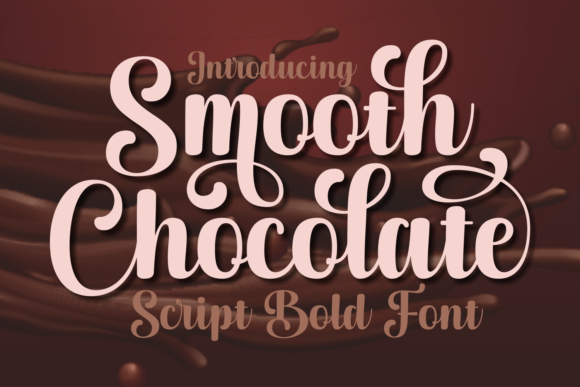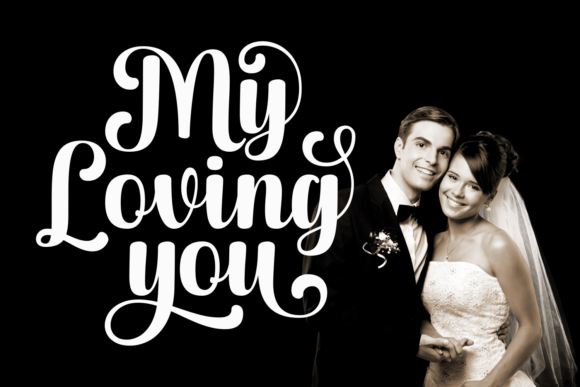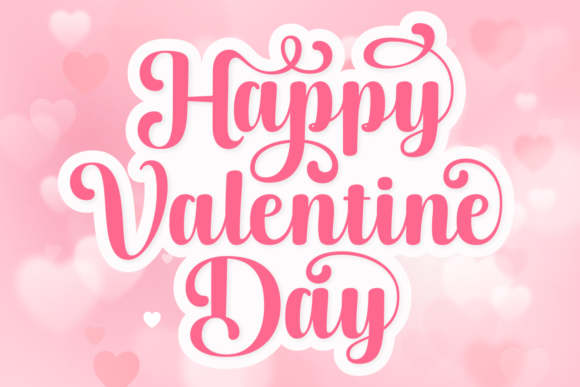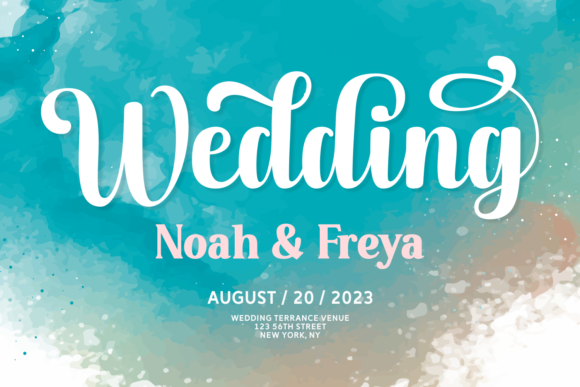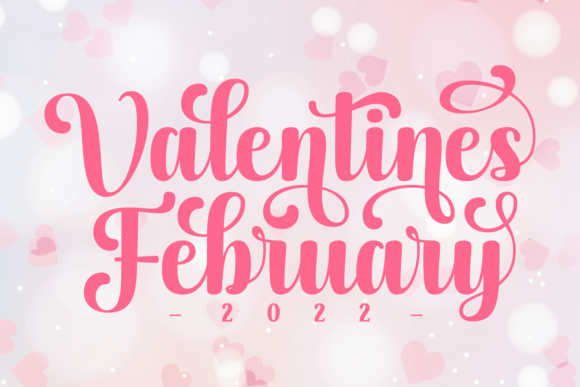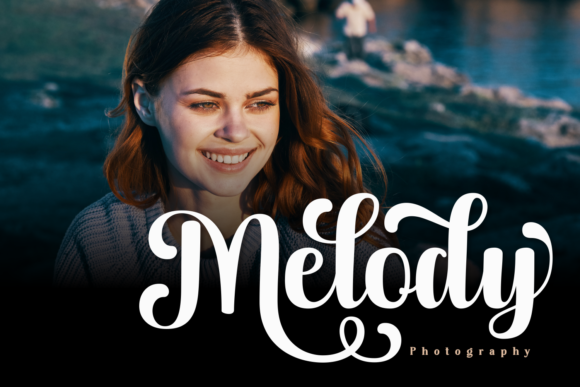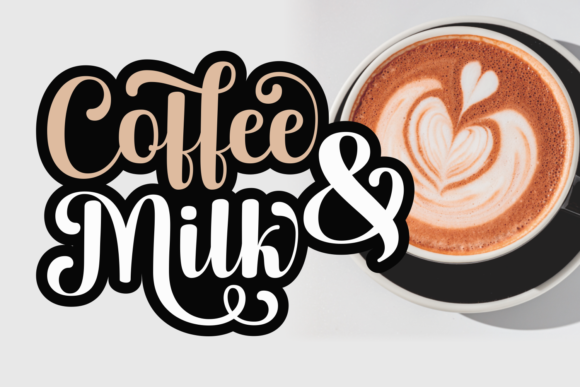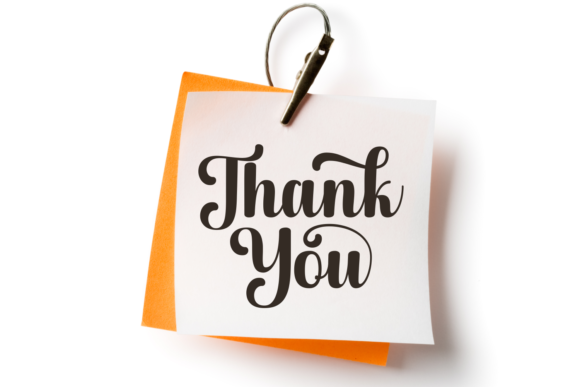
Smooth Chocolate Font
About Smooth Chocolate Font
Smooth Chocolate is a gorgeous script font. It will add a lovely spark to any design project that you wish to create! This font is PUA encoded which means you can access all of the amazing glyphs and ligatures with ease!